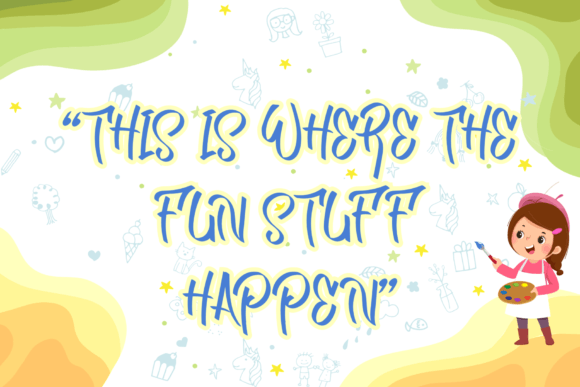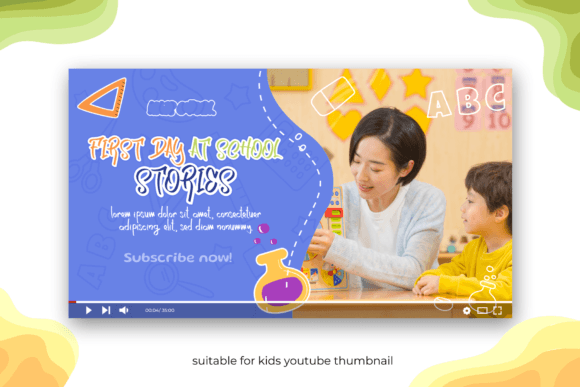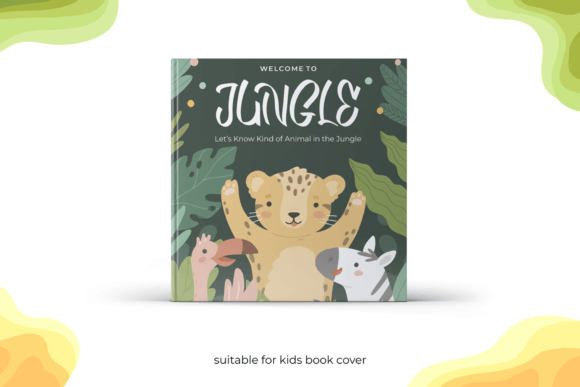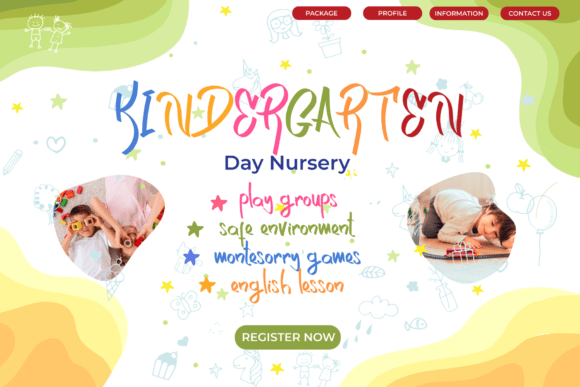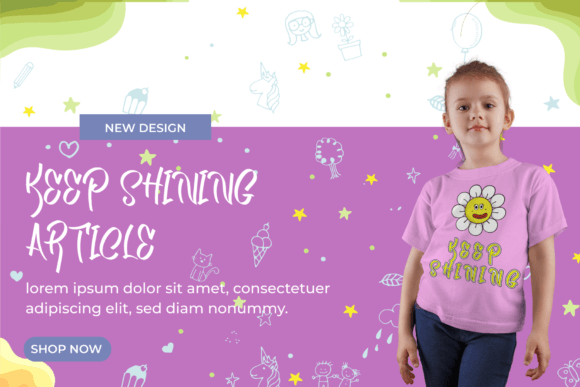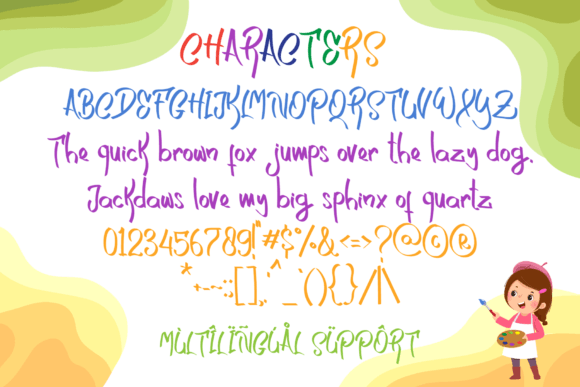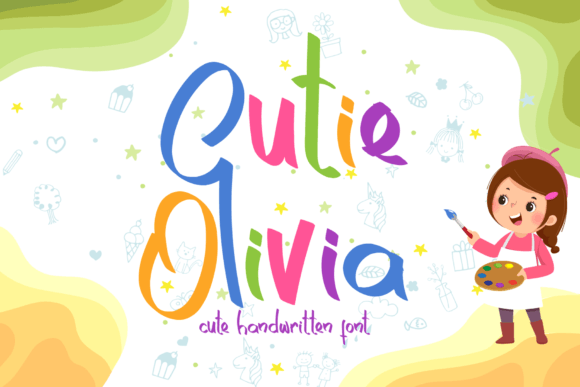
Introducing Cutie Olivia Font: The Ultimate Handwritten Font for Creative Projects
Are you tired of using the same old fonts for your creative projects? Look no further! Cutie Olivia Font is here to shake things up with its fun and relaxed handwritten style. This quirky font is perfect for designers, crafters, and anyone looking to add a personal touch to their work.
The Charm of Cutie Olivia Font
Cutie Olivia Font is a one-of-a-kind handwritten font that exudes a sense of playfulness and friendliness. Its unique charm lies in its imperfections, making it look like it was written by hand. The font’s relaxed and casual vibe makes it perfect for a wide range of projects, from creative crafts to digital designs.
What Makes Cutie Olivia Font So Versatile?
One of the standout features of Cutie Olivia Font is its incredible versatility. This font can be used in a variety of contexts, from:
- Digital designs: Use Cutie Olivia Font to add a personal touch to your social media graphics, blog posts, and website headers.
- Crafting projects: Add a handmade feel to your scrapbooking, card making, and journaling projects with this charming font.
- Branding and packaging: Use Cutie Olivia Font to create unique and eye-catching brand identities and packaging designs.
- Stationery and invitations: Make your stationery and invitations stand out with this beautiful handwritten font.
Key Features of Cutie Olivia Font
Here are some key features that make Cutie Olivia Font a must-have for designers and crafters:
- Handwritten style: Cutie Olivia Font has a genuine handwritten look that’s perfect for adding a personal touch to your projects.
- Quirky and playful: This font’s quirky and playful vibe makes it perfect for creative projects that require a bit of whimsy.
- Easy to read: Despite its handwritten style, Cutie Olivia Font is incredibly easy to read, making it perfect for body text and headings.
- Highly versatile: Use Cutie Olivia Font in a variety of contexts, from digital designs to crafting projects.
How to Use Cutie Olivia Font in Your Projects
Cutie Olivia Font is a fun and relaxed handwritten font that’s perfect for designers, crafters, and anyone looking to add a personal touch to their projects. Its quirky and playful vibe makes it incredibly versatile, and its ease of use makes it a must-have for any creative project. So why not give Cutie Olivia Font a try and see how it can elevate your designs?
Whether you’re a seasoned designer or a crafty DIY enthusiast, Cutie Olivia Font is sure to become a favorite in your font collection. So go ahead, get creative, and have fun with Cutie Olivia Font!